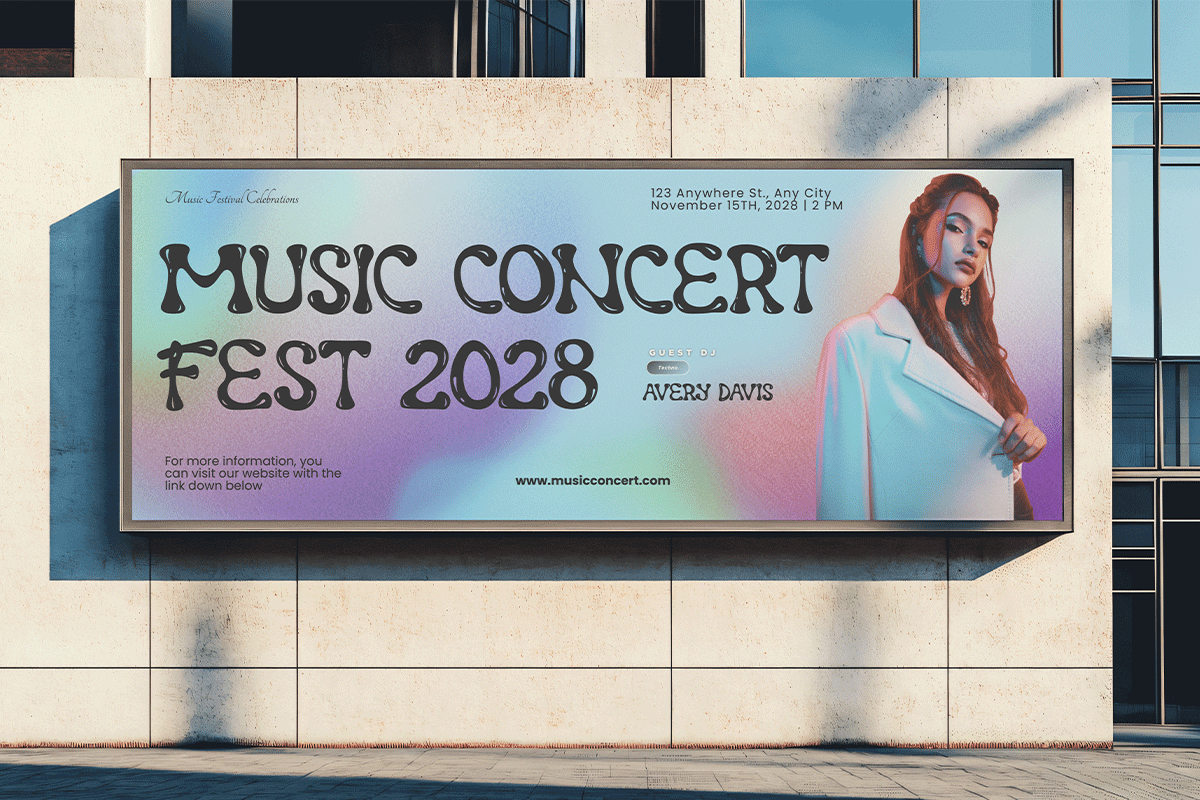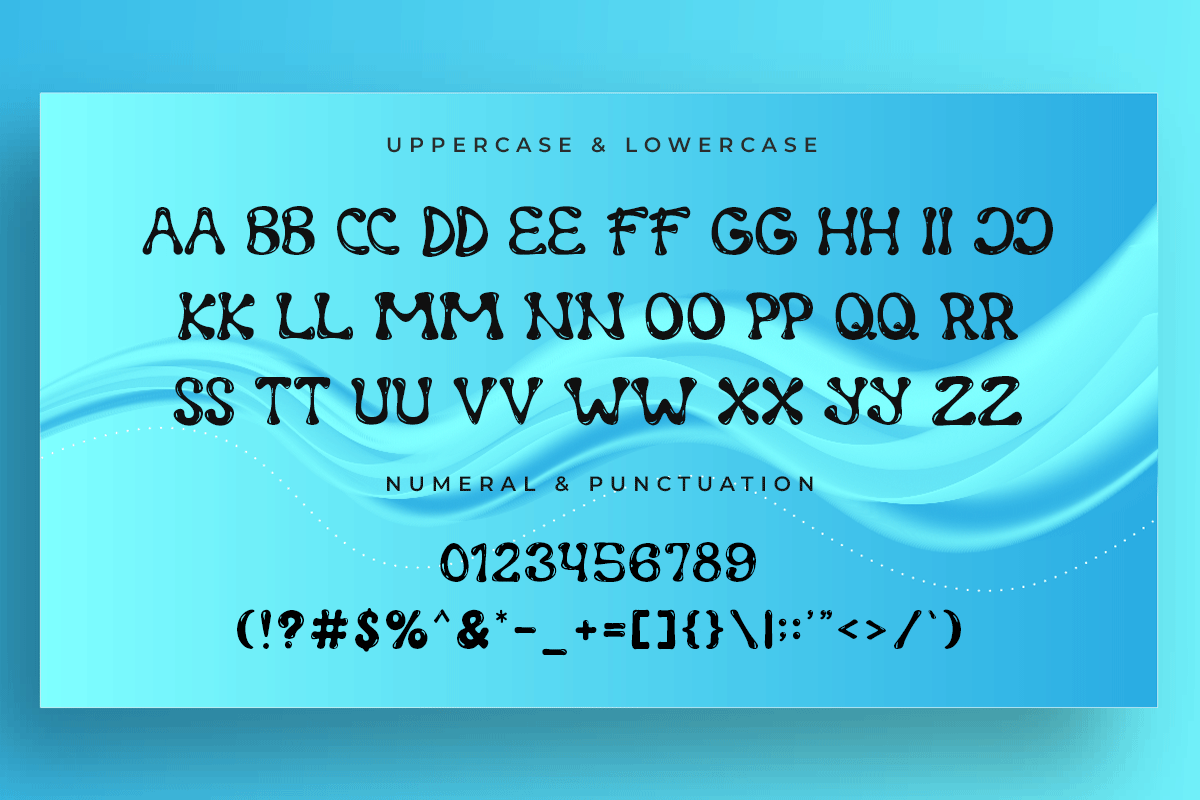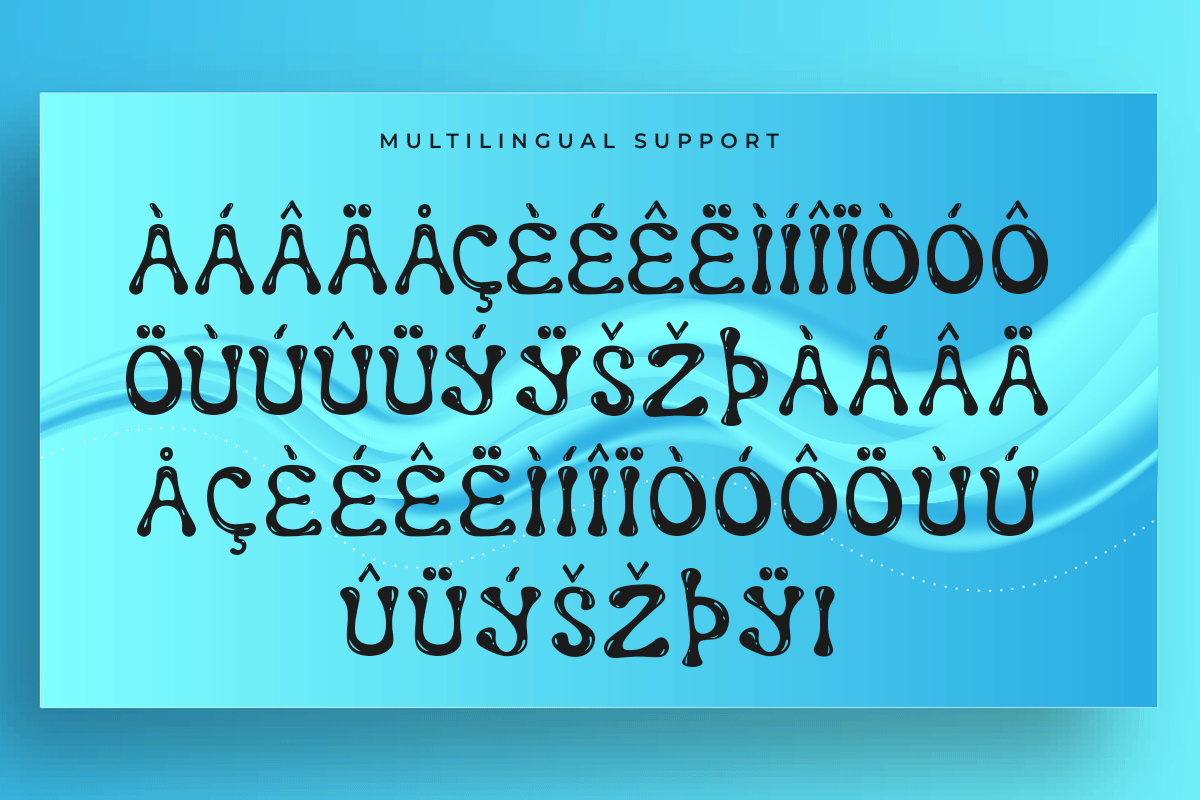
Oceyne A Modern Display Liquid Font As the name suggests, the Oceyne A Modern Display Liquid Font has a water-bubble-like feel. On the other hand, Oceyne A Modern Display Liquid Font is a modern font that will help you create captivating and contemporary letter designs. Oceyne A Modern Display Liquid Font is a modern-style font that uses capital letters. With its bold font typeface, this font doesn't feature water bubbles on each letter. This font has a unique curved shape that is rarely found in other fonts. Oceyne A Modern Display Liquid Font is readable, visible, and understandable from a distance. However, this font is less suitable for writing long sentences or paragraphs, such as the contents of books and magazines. Oceyne A Modern Display Liquid Font is suitable for quotes, design titles, blog headers, art quotes, and typography. This font can also be used as a print font such as posters, business cards, and branding fonts. Oceyne A Modern Display Liquid Font was created to provide a cool and fresh feel to any brand that chooses this font. Our collection of Serif fonts is compatible for use as: Fonts, Canva fonts, Fonts, and Adobe fonts. These fonts also work as Windows and Apple fonts. For your social media needs, you can use and install fonts from our Serif font collection to use as Instagram fonts, Facebook fonts, and Twitter fonts. For our customers, we provide a collection of the best decorative fonts, each with its own unique style and characteristics, so our customers can create any design they want. We know what our clients love! That's why we've put everything you need in one easy-to-download package. Our easy-to-download package contains all the files you need to create beautiful typography!